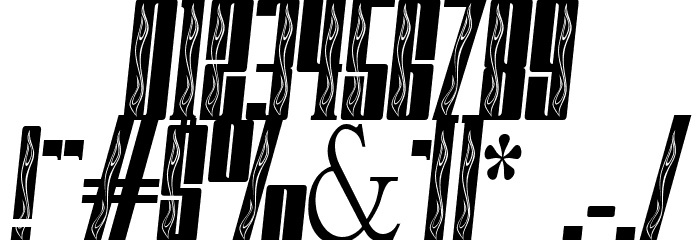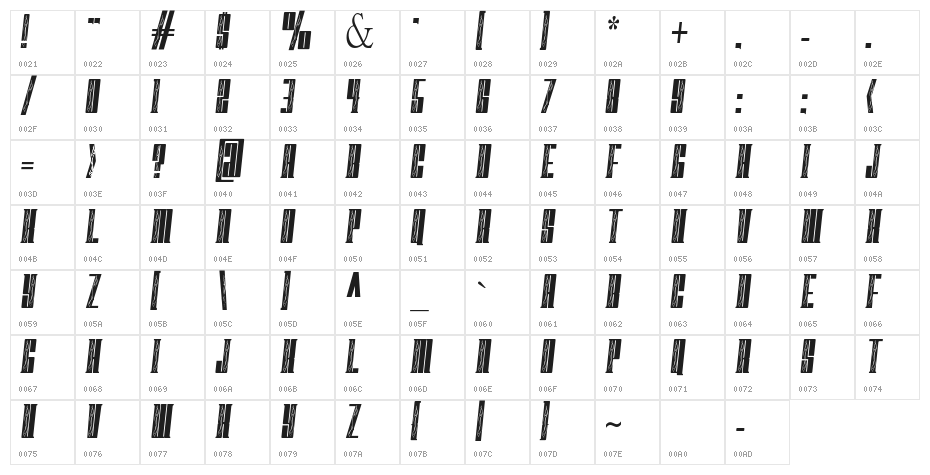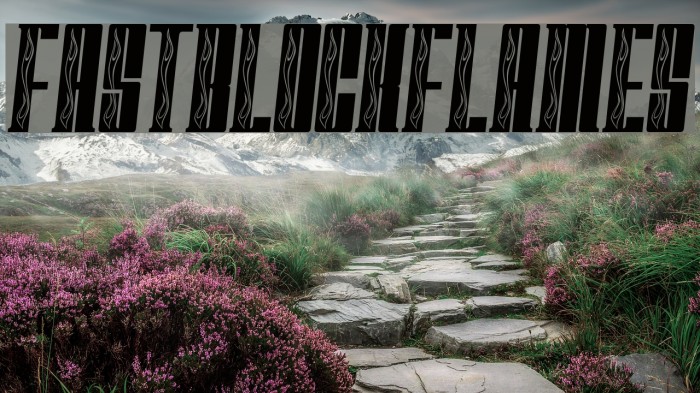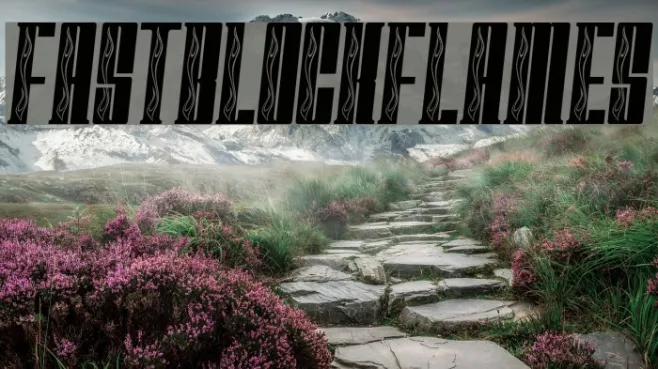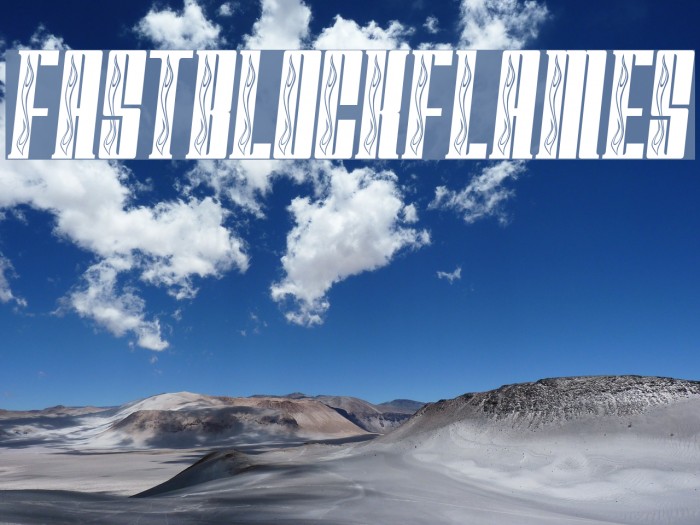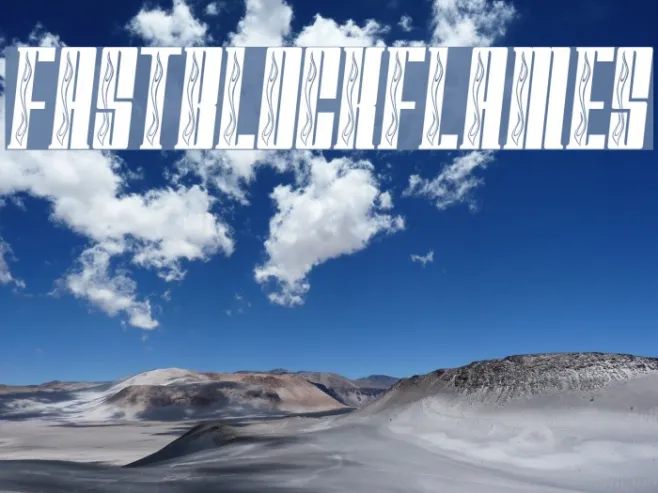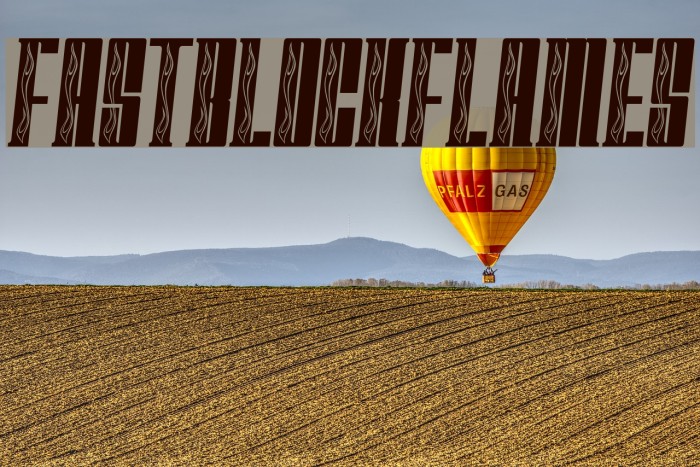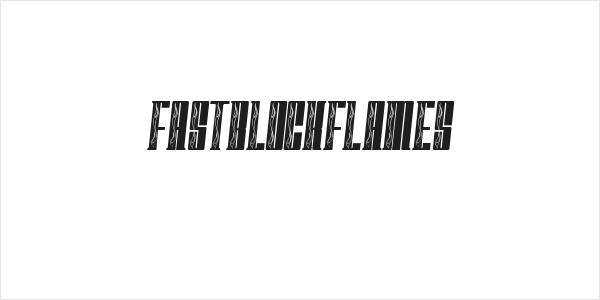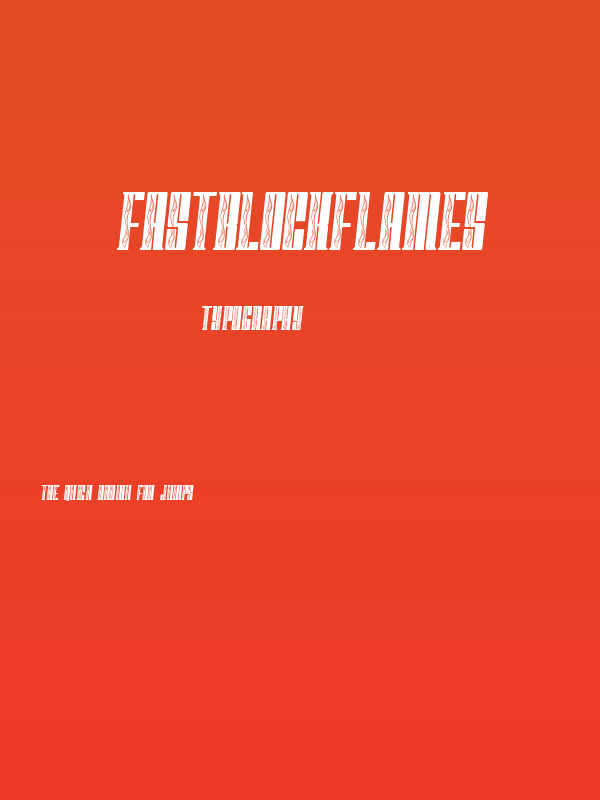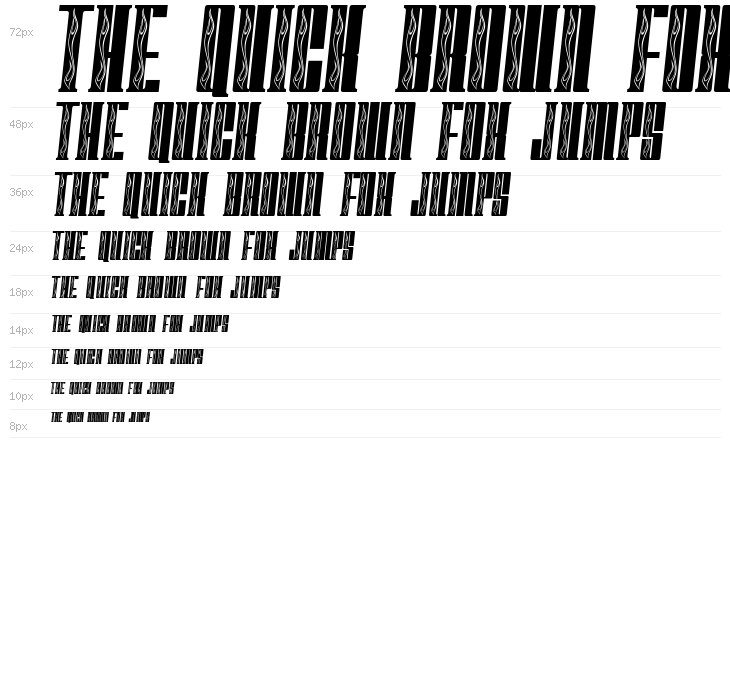
FastBlockFlames Font
FastBlockFlames Description
This font features a bold and dynamic style with a distinct flame motif integrated into each character. The letters are tall and narrow, giving a condensed appearance, while the flames add a decorative and energetic flair. The overall design is striking and eye-catching, making it suitable for projects that require a strong visual impact. The characters are closely spaced, enhancing the compact and intense look. The font's unique style is ideal for creative and adventurous themes.
| Proposed Projects | Ideal for branding, posters, event promotions, and any design needing a bold, fiery aesthetic. |